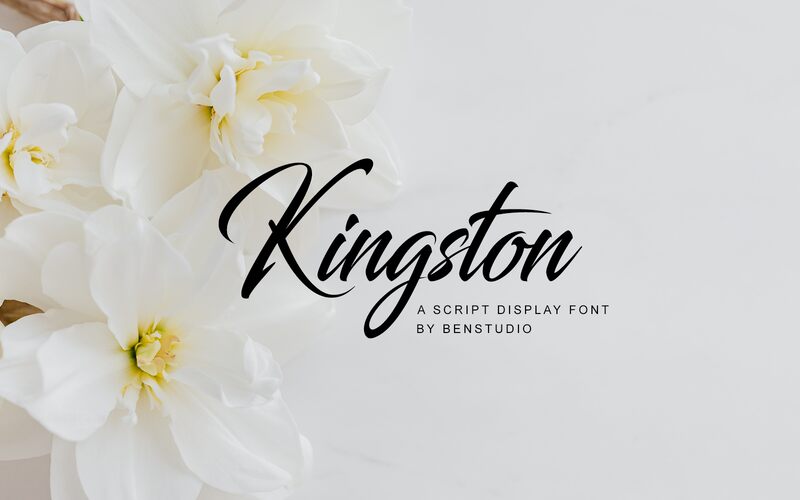
Kingston
Kingston, crafted by Bens Creative, is a striking calligraphic font that exudes elegance and sophistication. With its condensed width, Kingston flows effortlessly across the page, lending an air of refined charm to any design. The intricate strokes are meticulously balanced, highlighting an eloquent blend of bold statement and graceful fluidity.
This font is perfect for wedding invitations, luxury branding, and editorial titles where an exquisite touch is essential. Its unique character ensures it captures attention while providing a seamless reading experience. As both a visually captivating and stylistically versatile typeface, Kingston stands out in any application requiring a touch of class and distinction.